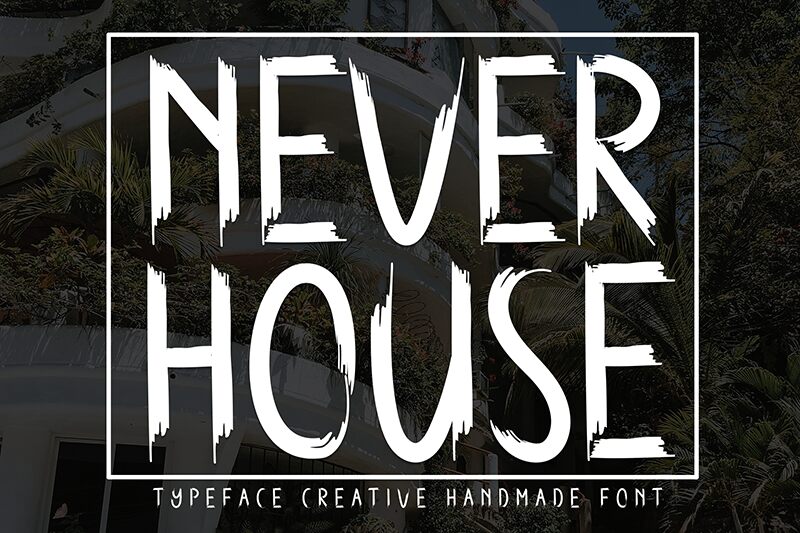
Never House
\nNever House font by Andi Moz is a condensed brush script with a raw and edgy character. Its appearance which gives closure to every last detail reveals jagged, distressed, chaotic, and gritty letters that are captivating. The free font is inspired by horror movie posters and captures their suspenseful spirit while giving designers the privilege of designing their own.
Download it for logotypes, typographic posters, headings, book titles and covers, packaging designs especially ones related to food brands or cosmetics products, apparel designs including t-shirts and labels. The raw look can also be intimidating while always delivering the exact message needed within invitations or brochures in general.